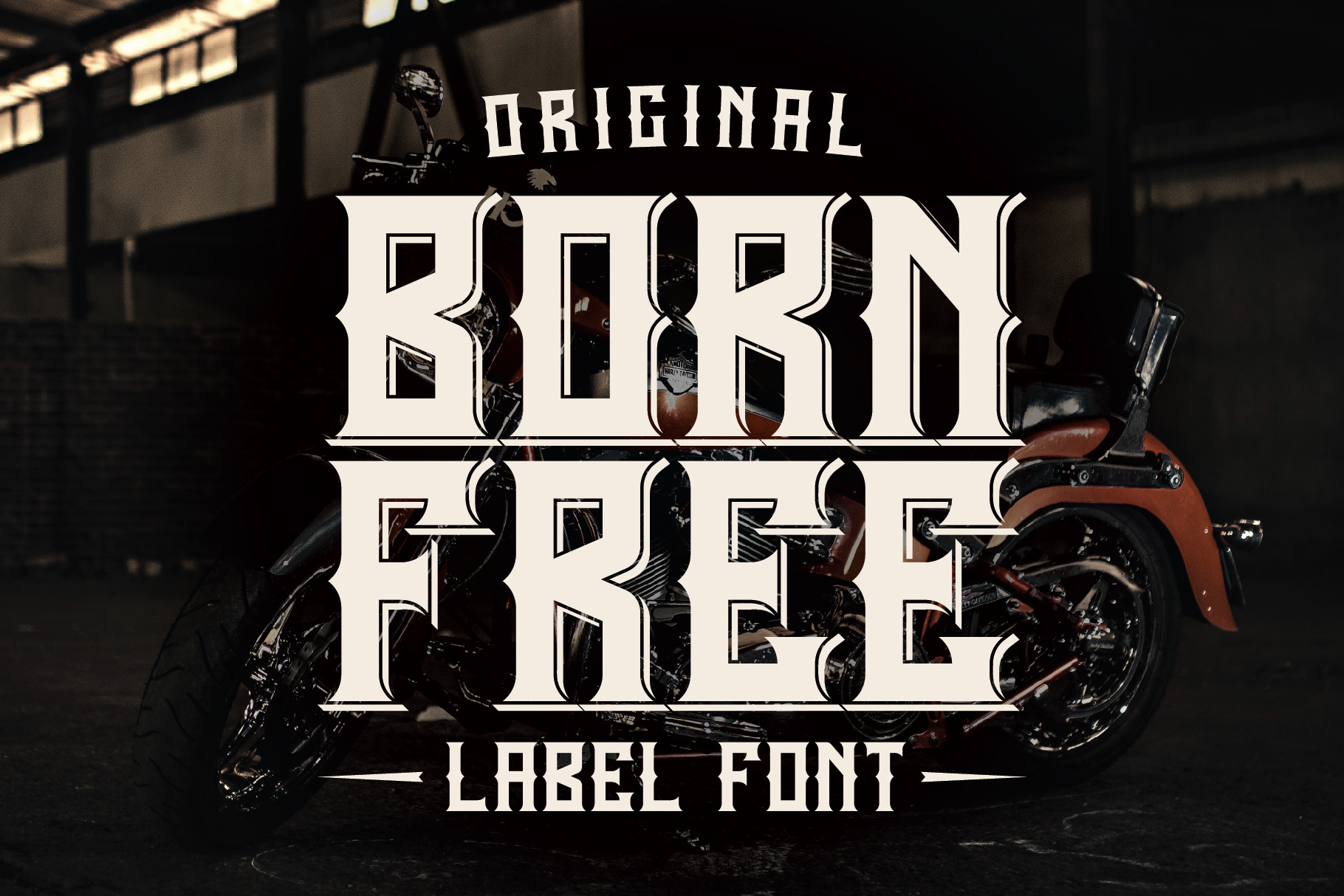
Born Free Typeface
Introducing a vintage look label typeface named "Born Free". This typeface includes four styles, for sample look at 3rd preview. Typeface is good viewed on any yours design.